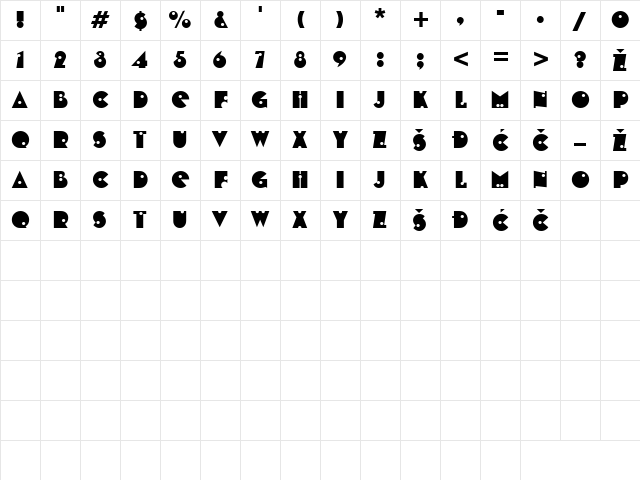
Shotgun Regular
Design Context for Shotgun
Shotgun is a composed and adaptable typeface that performs quietly and consistently across a wide range of design contexts.